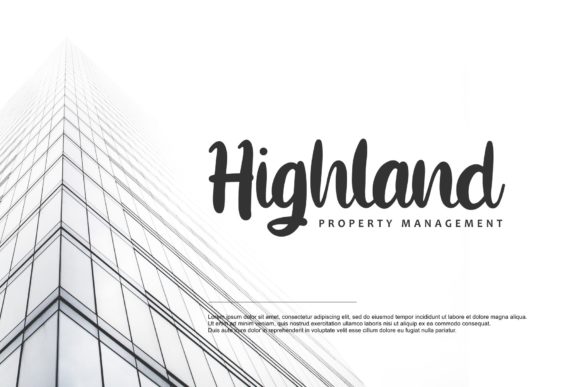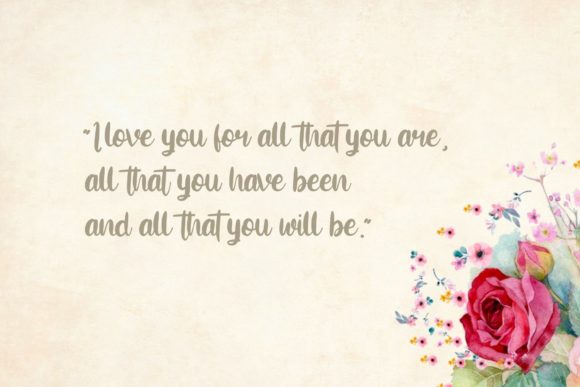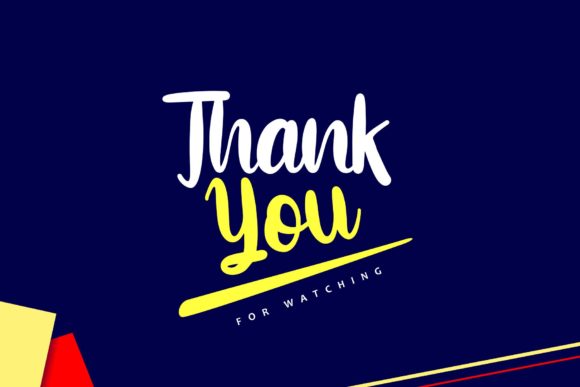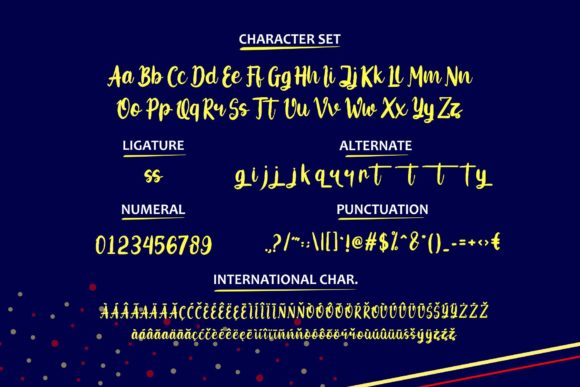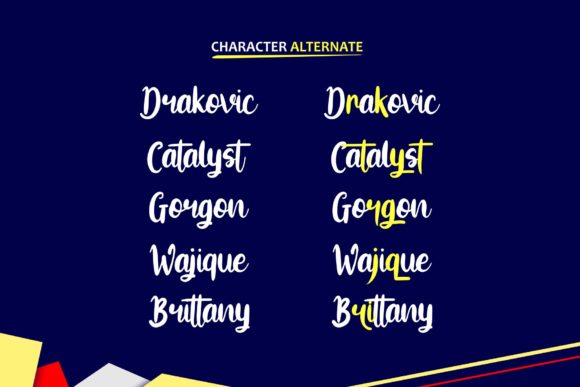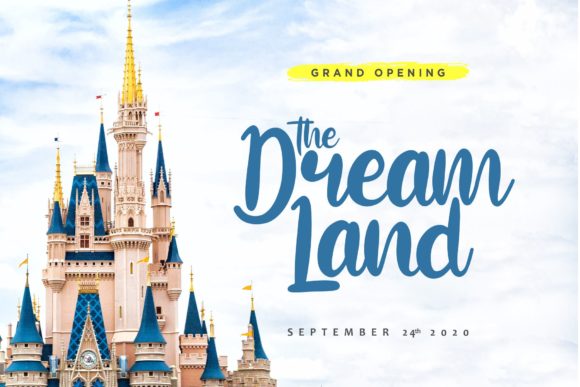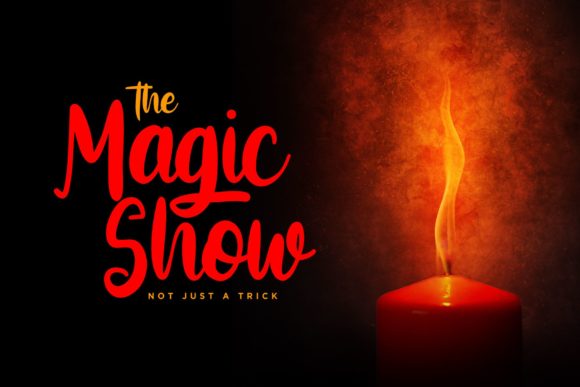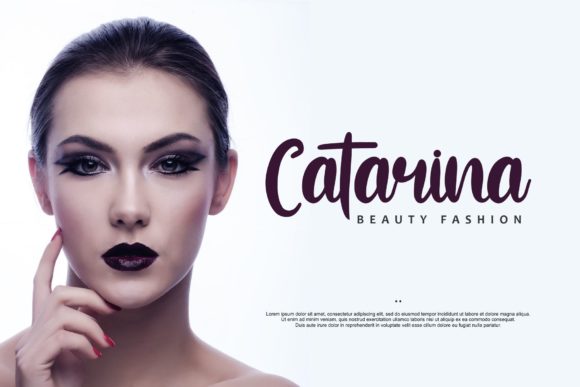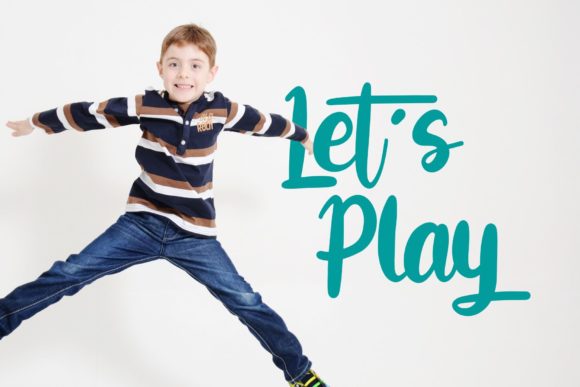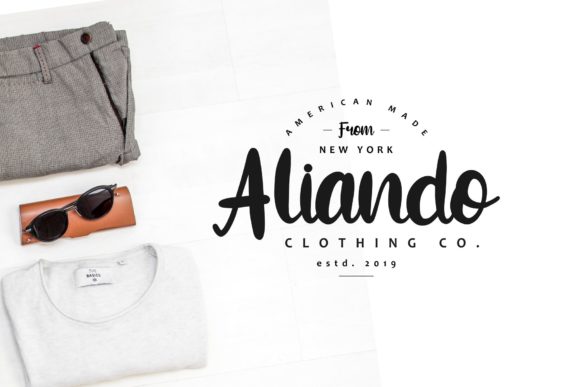
The Eighters Font
About The Eighters Font
The Eighters is an incredibly modern, clean and charming handwritten font with a cool feel. Use it to turn any design project into a true standout!